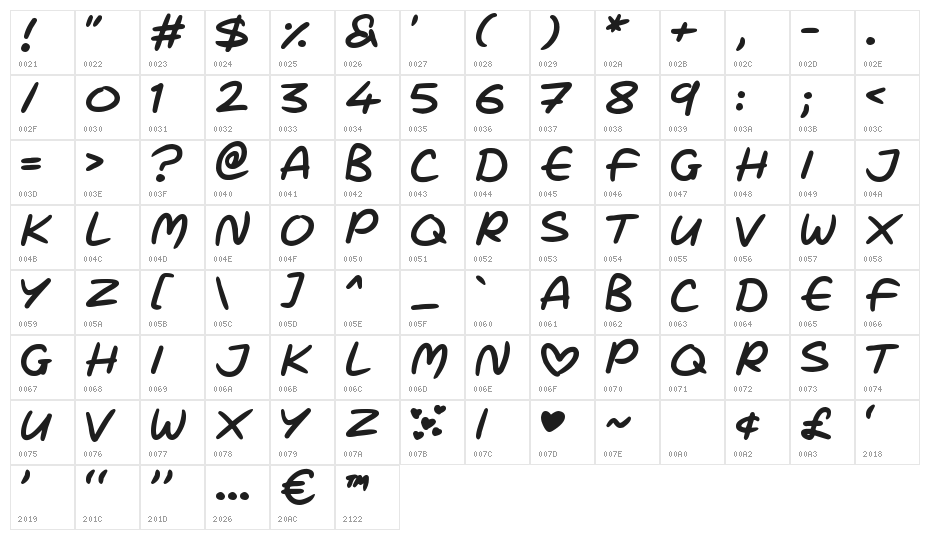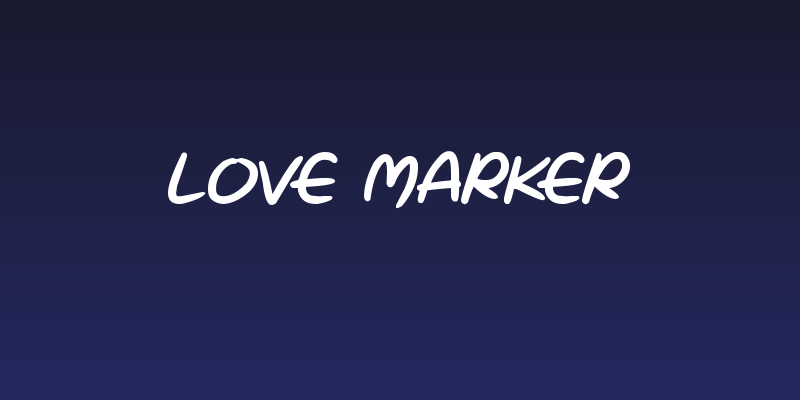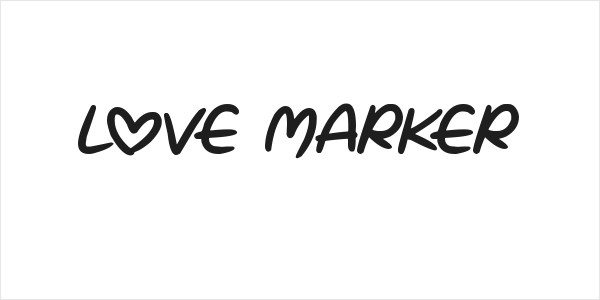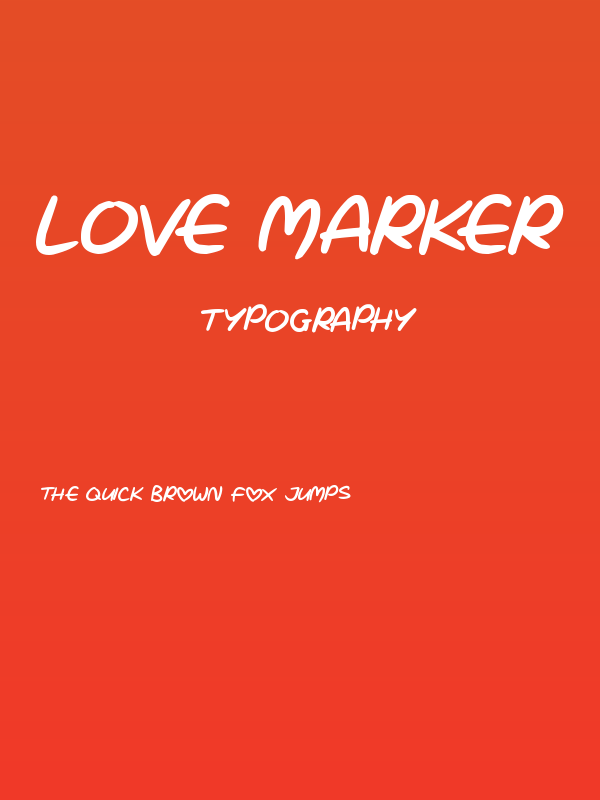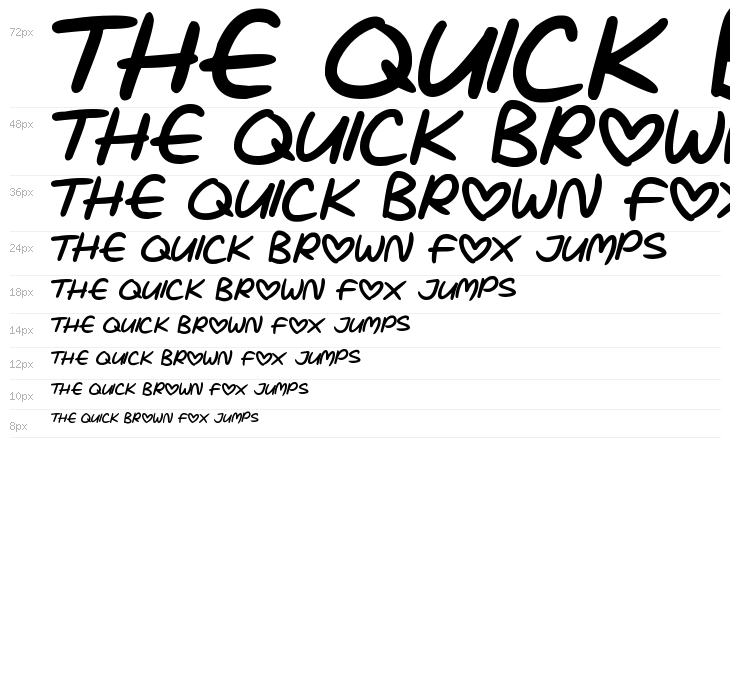
Love Marker Font
Love Marker Description
This playful and expressive font features a handwritten style with smooth, flowing curves and a casual, friendly appearance. The letters are bold and rounded, giving them a warm and approachable feel. The uppercase and lowercase letters maintain a consistent style, with the lowercase letters slightly smaller and more compact. The numbers are clear and easy to read, matching the overall aesthetic of the alphabet. Special characters are included, maintaining the same playful and informal style. This font is ideal for projects that require a personal touch, such as greeting cards, invitations, or playful branding.
| Proposed Projects | Ideal for greeting cards, playful branding, invitations, and personal projects. |